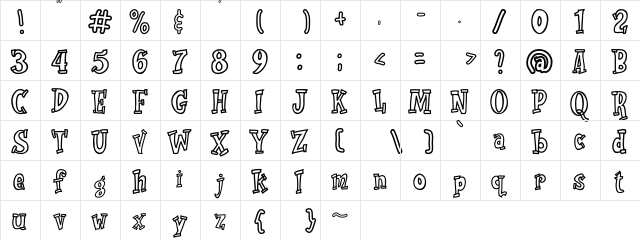
Rolade Outline Regular
Design Context for Rolade Outline Typeface
Rolade Outline brings ornamental detail and strong personality to headlines and identities, where visual impact matters more than quiet functionality.
Font Pairing: Pair with a clean neutral sans-serif for body copy to let Rolade Outline's character lead without overwhelming the composition.
Pro Tip: Use Rolade Outline exclusively at display sizes — it was designed to be seen, not read at length. Let a neutral companion handle body copy.